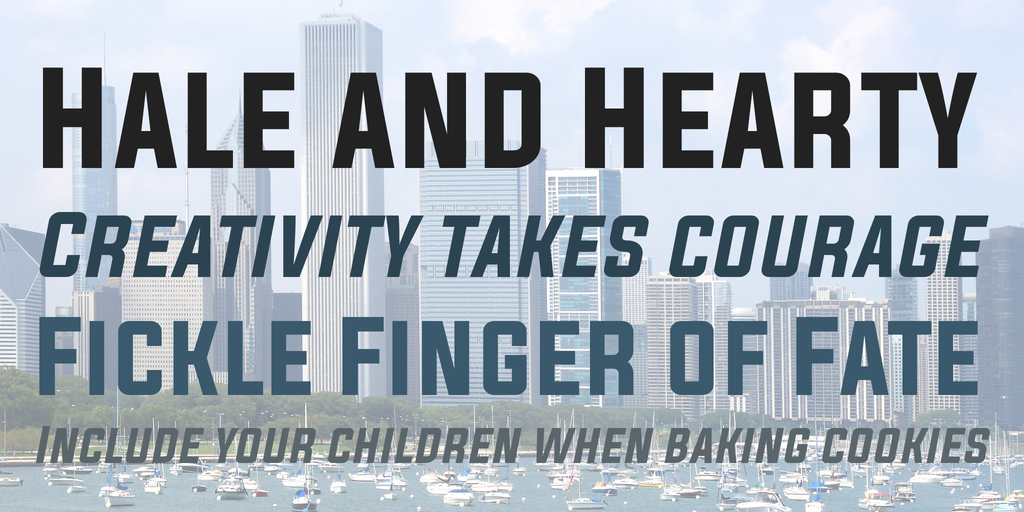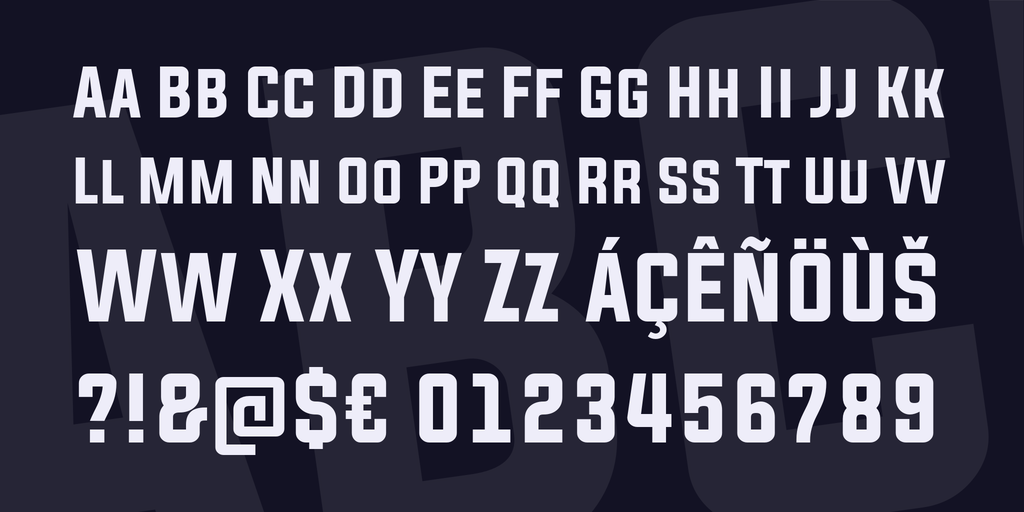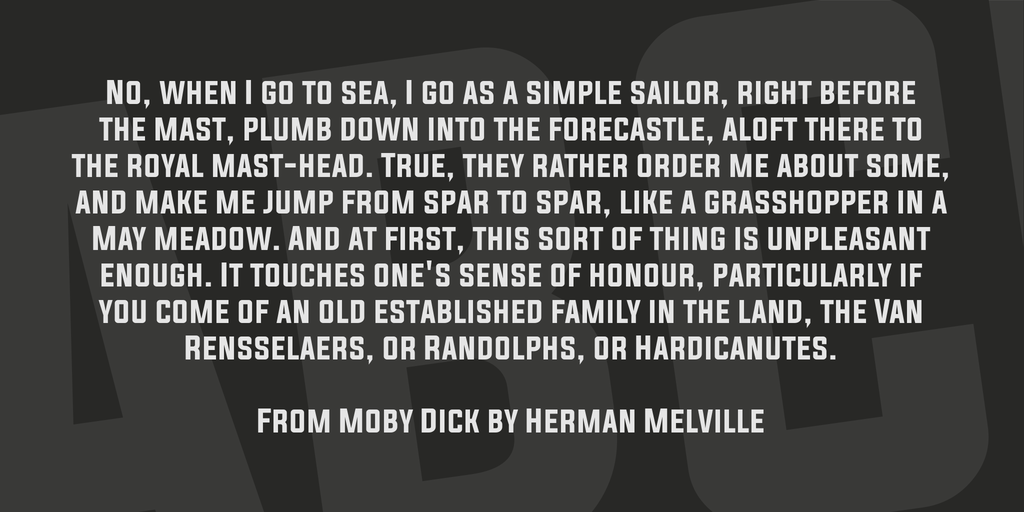
Unlocking the Power of Handcrafted Typography
Have you ever found yourself sitting at your desk, staring at a blank page, and suddenly, a burst of creativity hits you? The words start flowing, and your ideas begin to take shape. That’s exactly what happened for Situjuh Nazara when creating the Evogria Font. This handcrafted masterpiece is a testament to the power of typography in bringing ideas to life.
The Evogria Font is a carefully crafted typeface designed to evoke a sense of elegance and sophistication. Its purpose is to provide designers with a versatile tool to create stunning visual identities for their projects. With Evogria Font, designers can add a touch of refinement to their work, making it stand out in a crowded marketplace.
For designers, the Evogria Font is a valuable addition to their toolkit. Its unique characteristics and refined aesthetic make it an ideal choice for a wide range of projects, from branding and marketing materials to editorial and creative content. Whether you’re a seasoned pro or just starting out, the Evogria Font is sure to inspire your next creative project.
Evogria Font Key Features
- Font Family: Evogria is a sans-serif font family designed for digital use. It is available in 4 weights: Light, Regular, Medium, and Bold.
- Character Set: The Evogria Font family includes a wide range of characters, including Latin, Cyrillic, and Greek alphabets, as well as punctuation and symbols.
- Unique Characteristics: Evogria Font features a clean and modern design, with a focus on legibility and readability. It is designed to work well in digital environments and is suitable for use in a variety of applications, including typography, graphic design, and user interface design.
Evogria Font Review
Evogria Font is a modern, elegant sans-serif typeface that has some great qualities to it. ✨ The font’s clean lines and rounded edges give it a friendly, approachable feel that works well in a variety of contexts. ✨ Its high x-height and open forms also make it highly legible, even at smaller font sizes. ✨ Additionally, the font’s extensive language support and wide range of weights make it a versatile choice for designers.
However, there are some limitations to consider. ⚠️ One of the main issues is the font’s lack of character set consistency across different weights. ⚠️ This can lead to inconsistent spacing and uneven letterforms, which may detract from the overall design. ⚠️ Furthermore, some users may find the font’s rounded edges too soft or cursive-like, which may not be suitable for certain design projects.
Overall, I think Evogria Font is a solid choice for designers looking for a clean and elegant sans-serif typeface. While it may not be perfect, its strengths outweigh its weaknesses, and with some careful selection of weights and font sizes, it can be a great addition to any design project.
Pros:
- Highly legible, even at smaller font sizes
- Extensive language support
- Wide range of weights
Cons:
- Lack of character set consistency across different weights
- Rounded edges may be too soft or cursive-like for some users
Tips for Getting the Most Out of Evogria Font
Evogria Font is a versatile font that can be used for a variety of designs. Here are some tips to get the most out of it:
- Use it for titles and headings to add a touch of elegance.
- Pair it with other fonts to create a unique and interesting font combination.